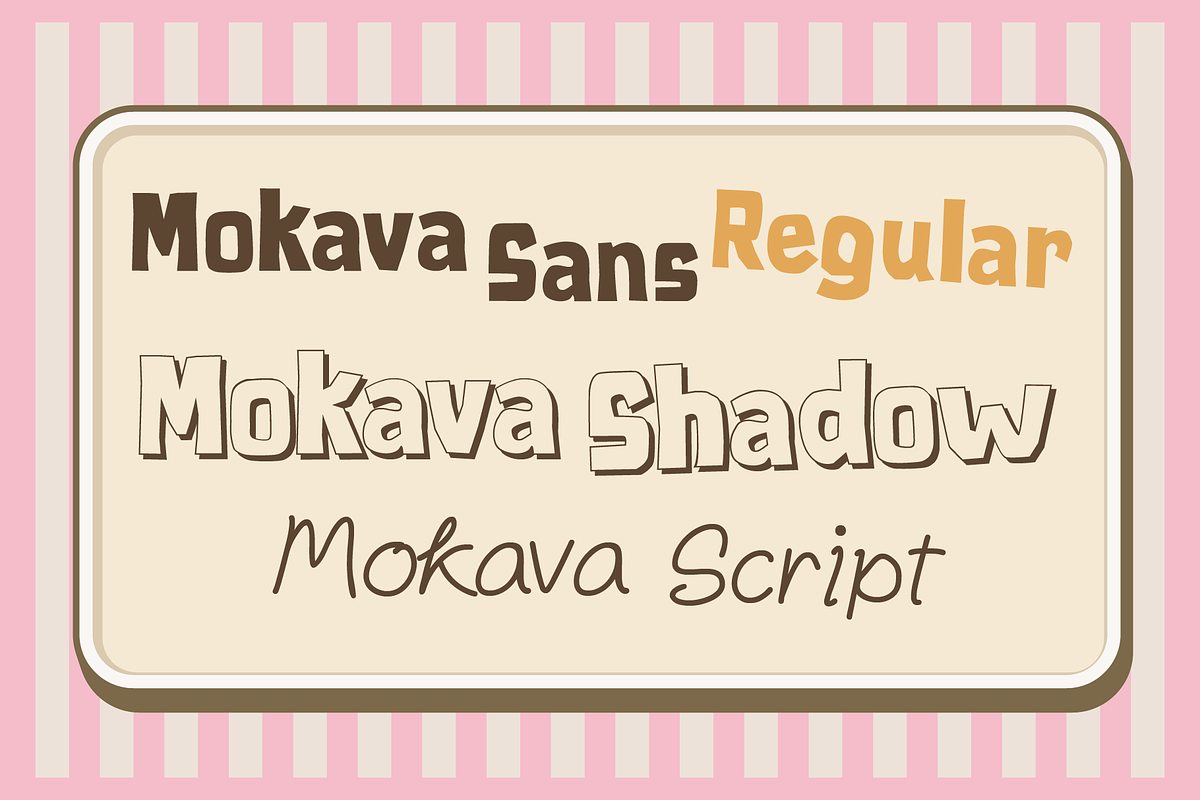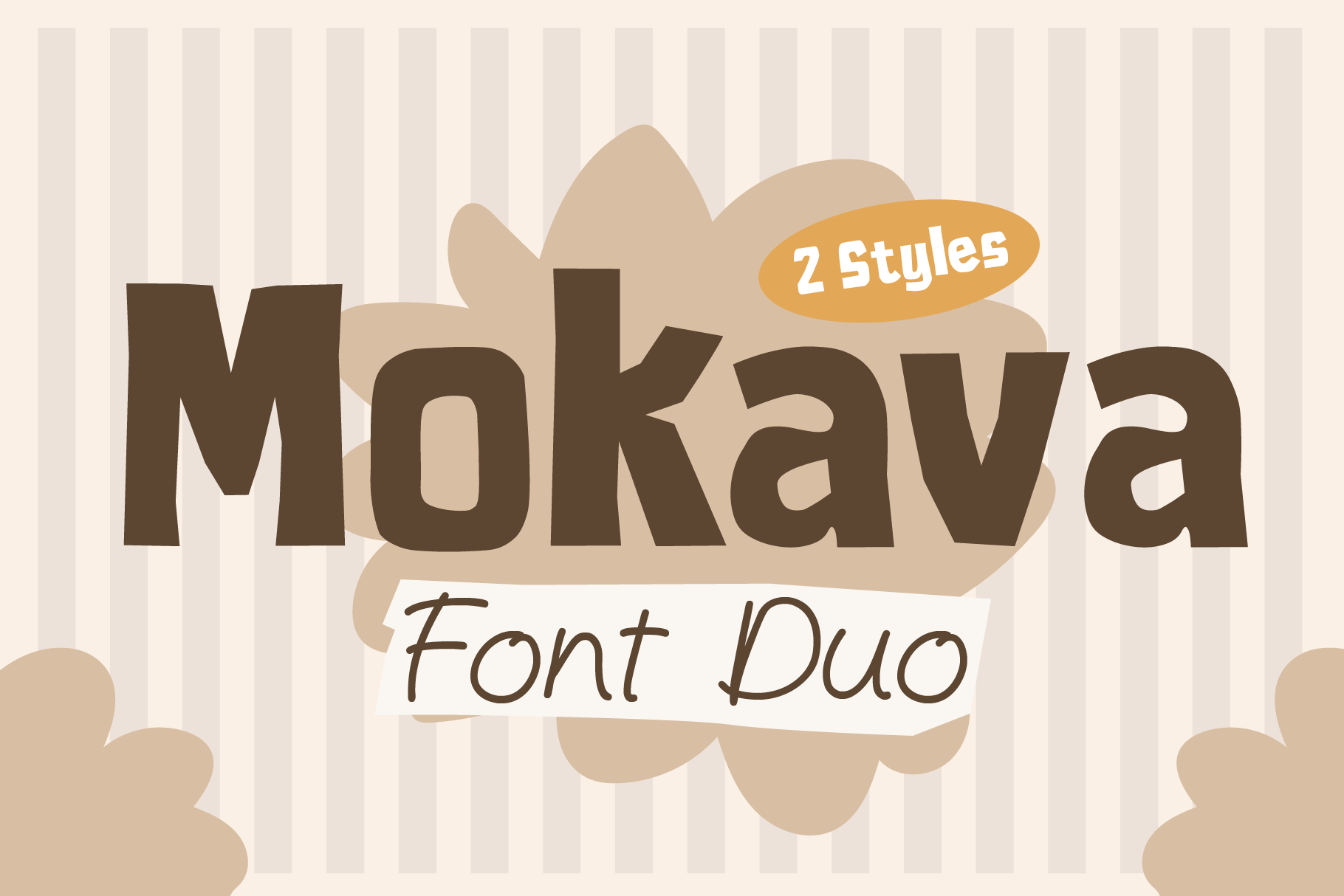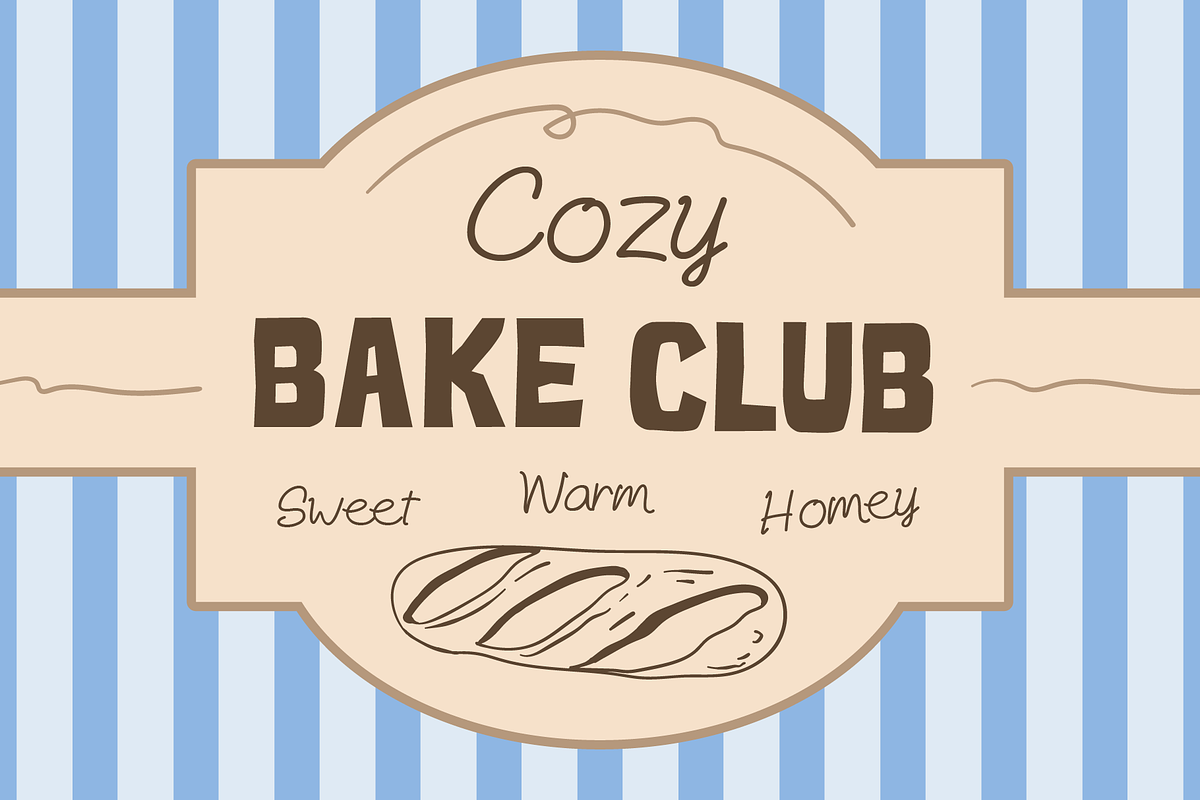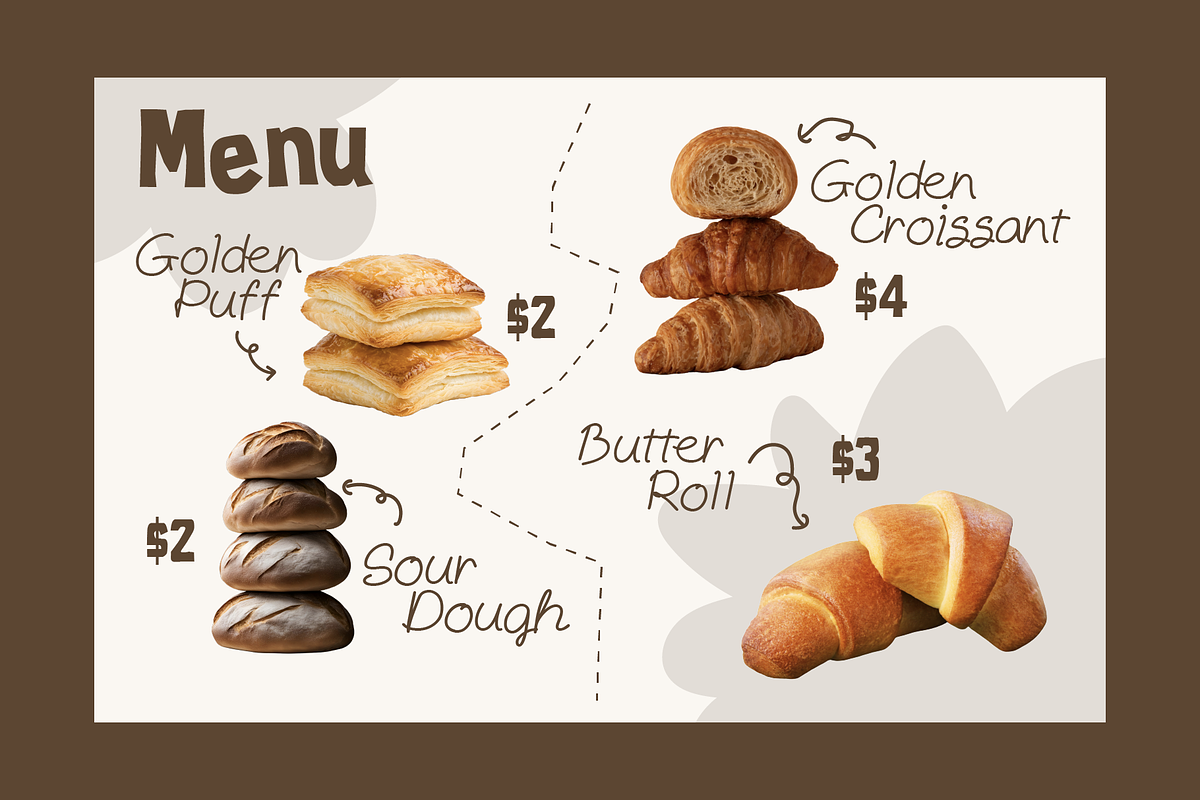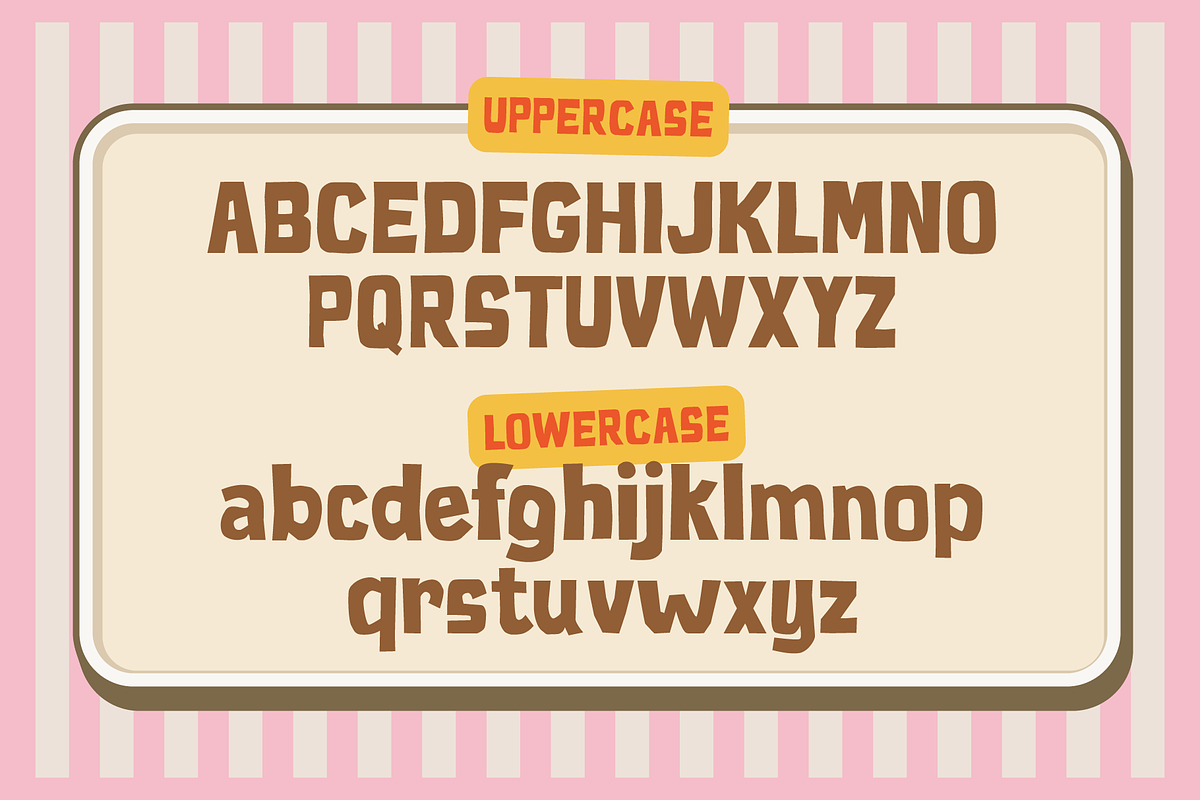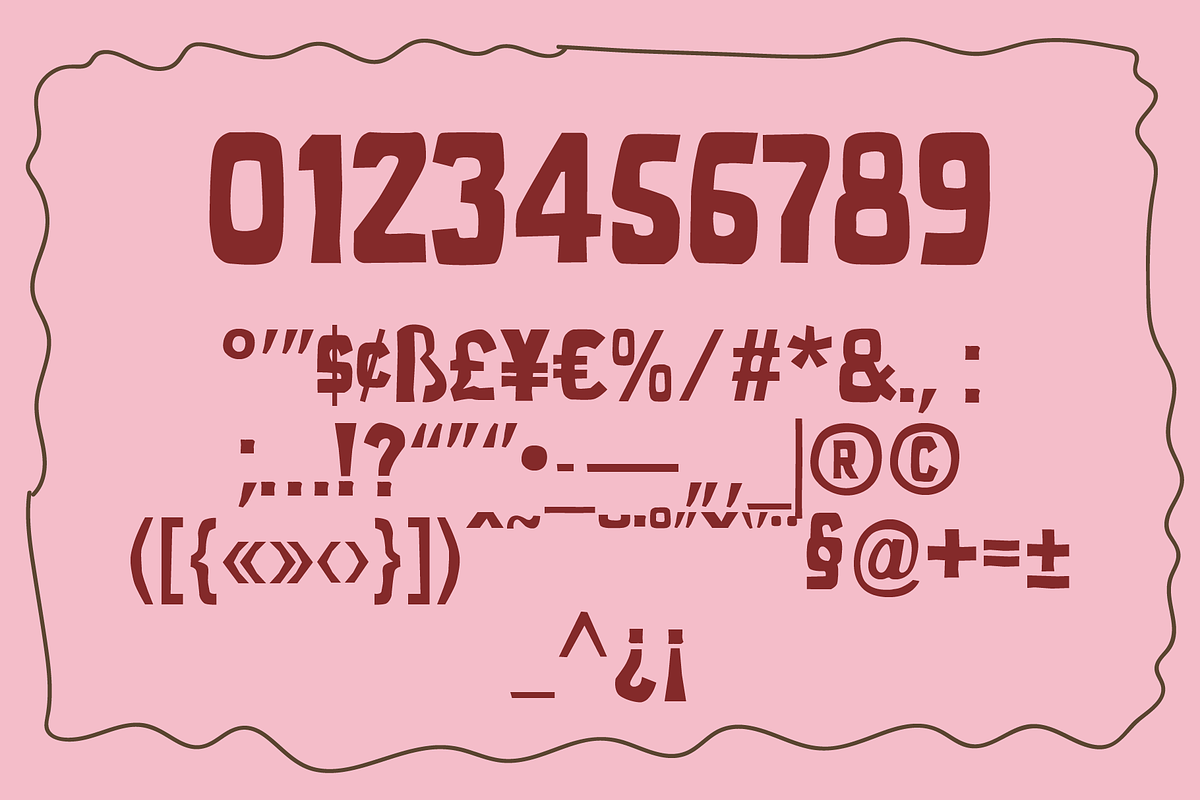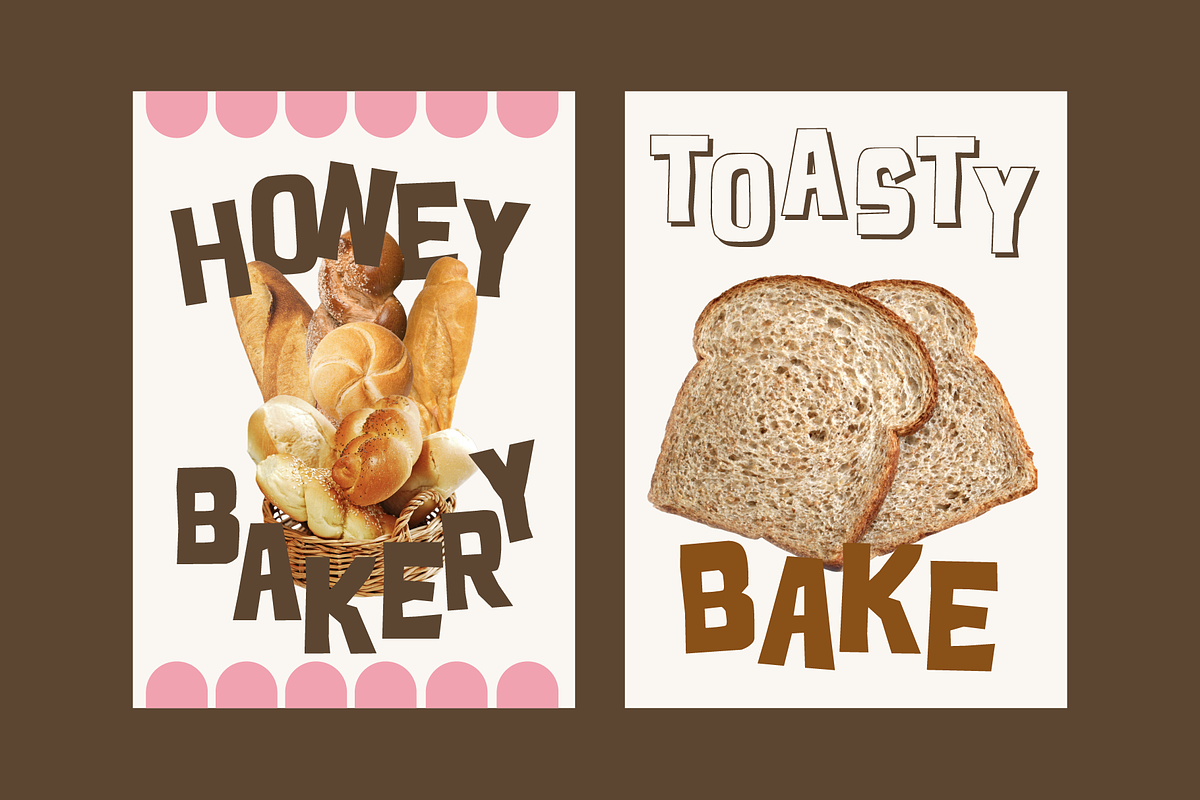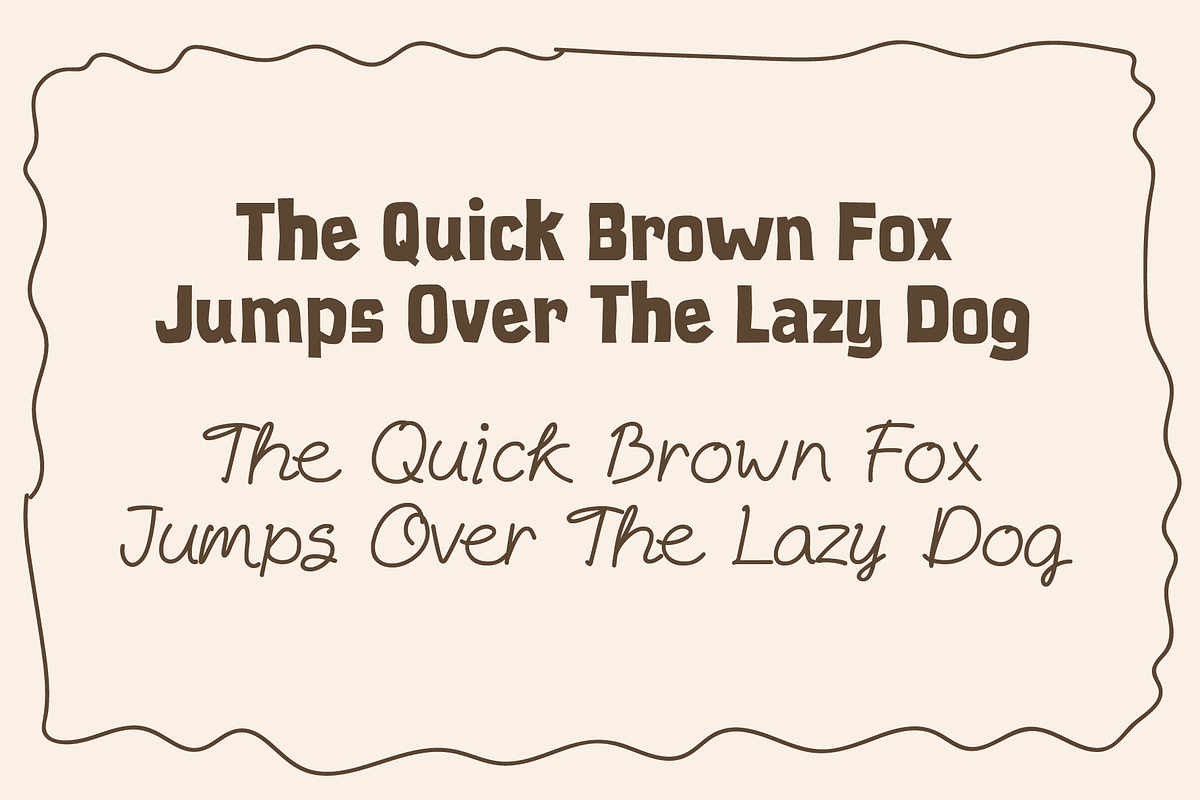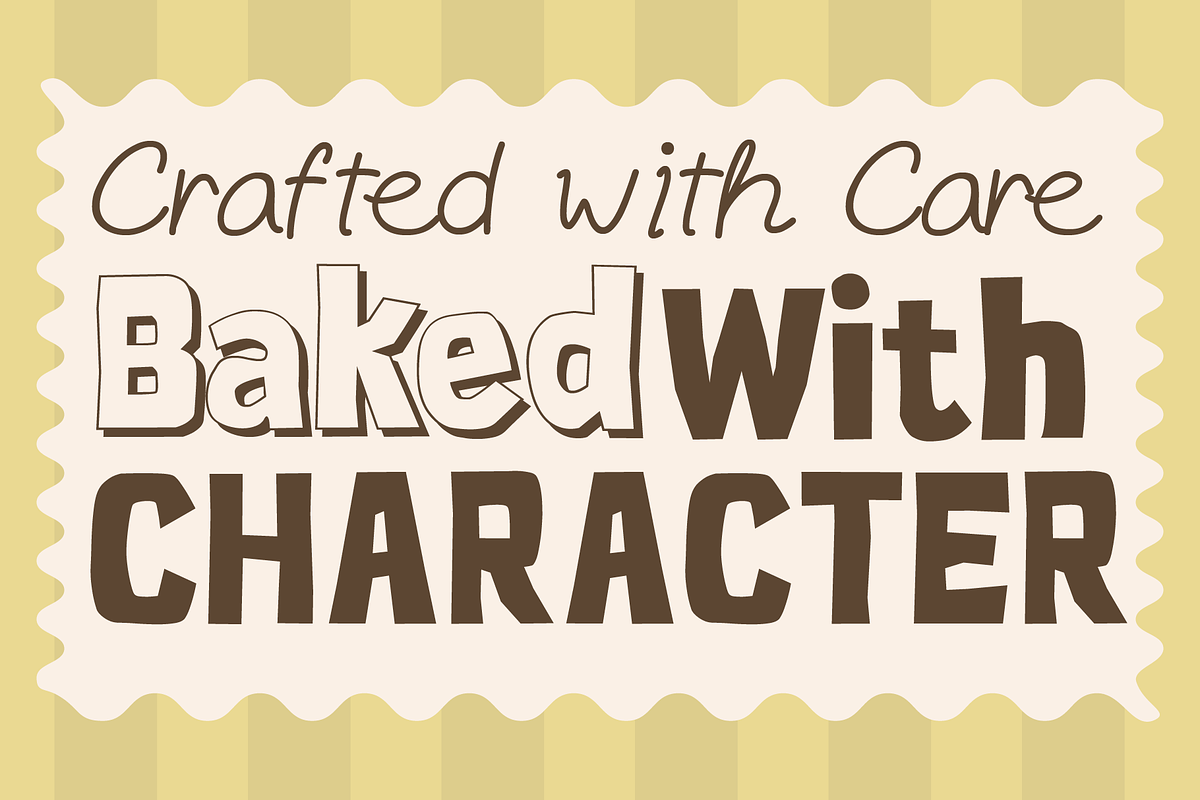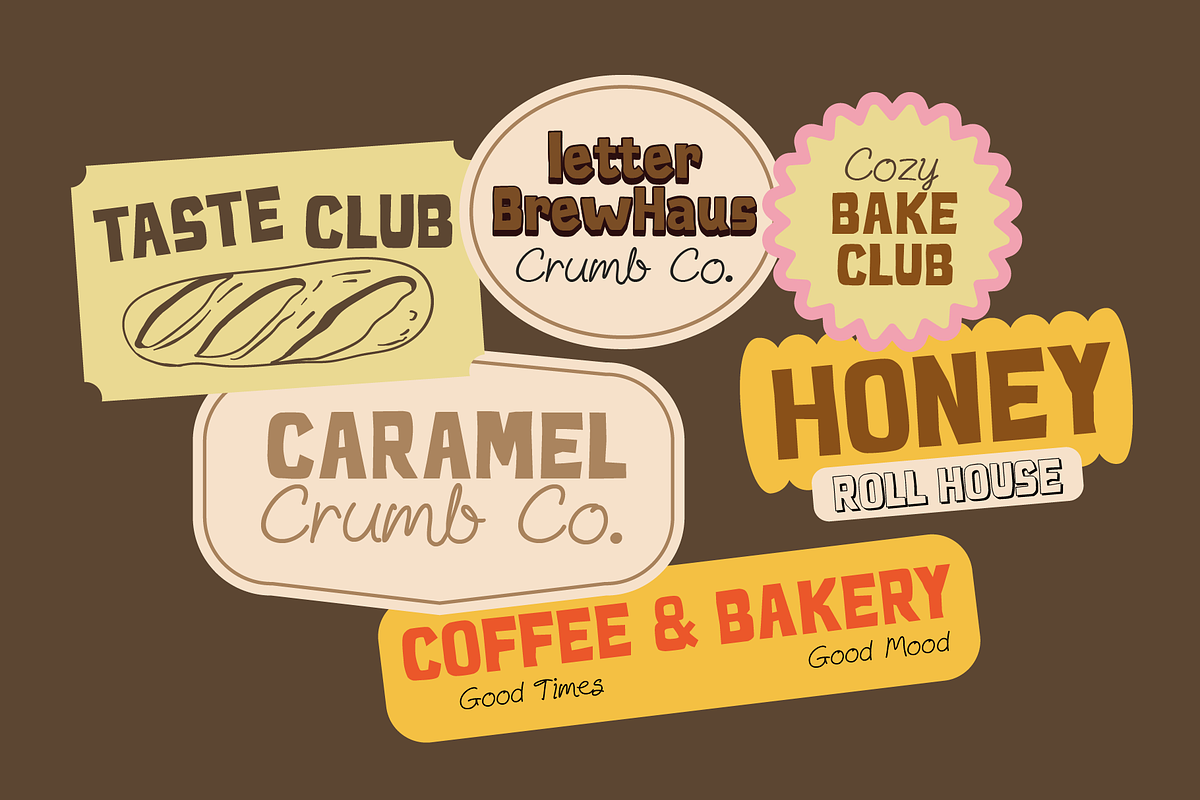
Mokava Font Duo – Irregular Display
Mokava is a warm and friendly font duo that pairs a bold, handcrafted display style with a soft and flowing script. Inspired by cozy bakeries, homemade pastries, and comforting coffee shop vibes, Mokava brings a sweet, welcoming charm to any design.
Perfect for branding, packaging, signage, menus, logos, and social media, this font set adds character and warmth to your creative projects. Each style complements the other beautifully—use the display font for headlines and the script for supporting text or taglines.
- Two font styles: Mokava Sans (Regular & Shadow) and Mokava Script
Ideal for bakery, cafe, handmade, and lifestyle branding
Bring a touch of homemade charm and artisanal personality to your next design with Mokava Font Duo.